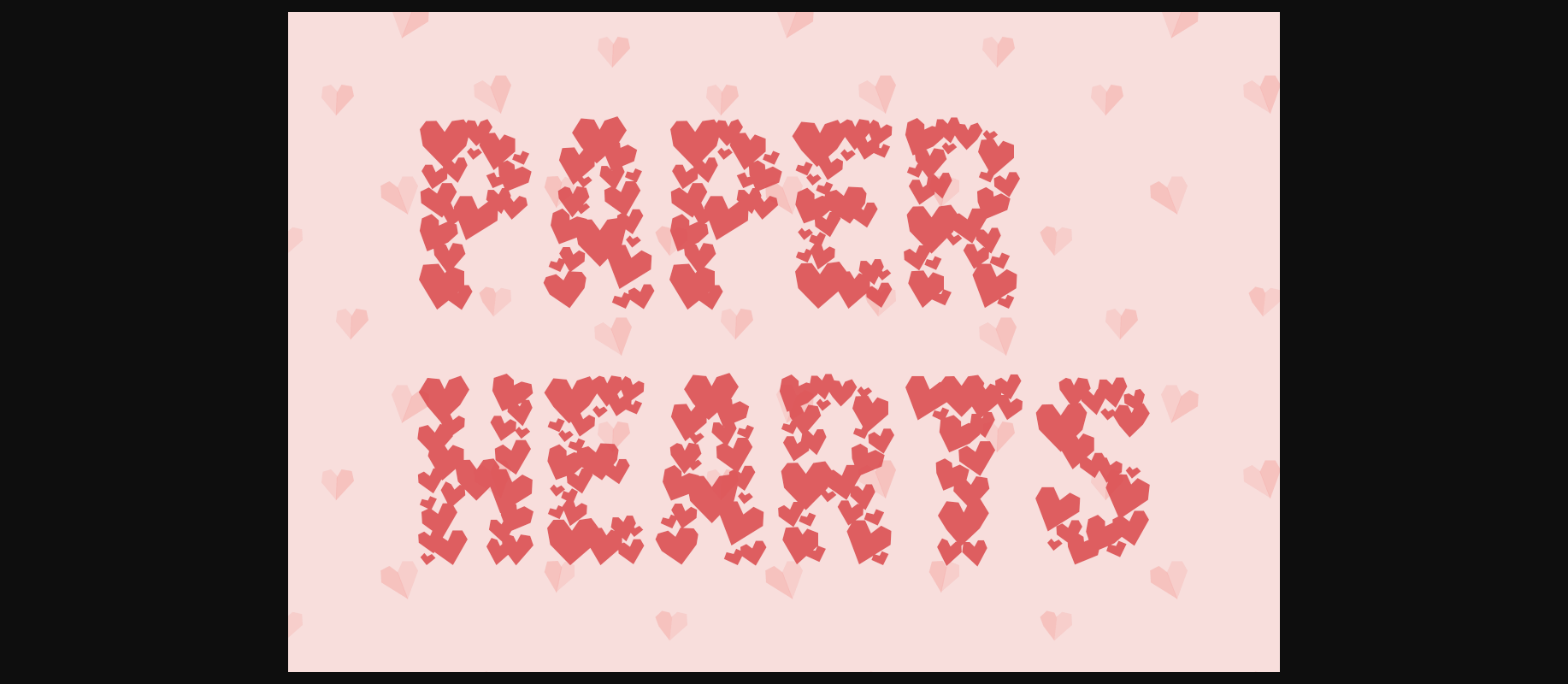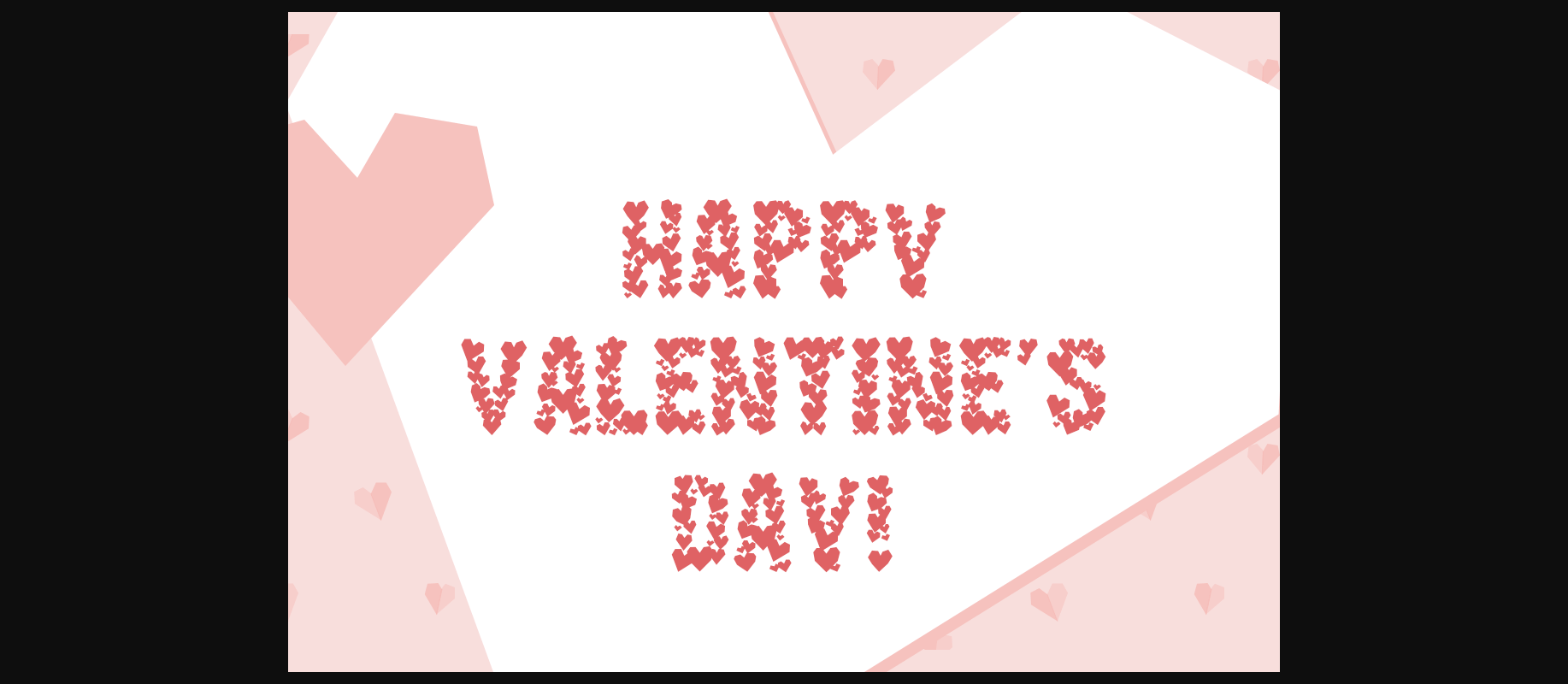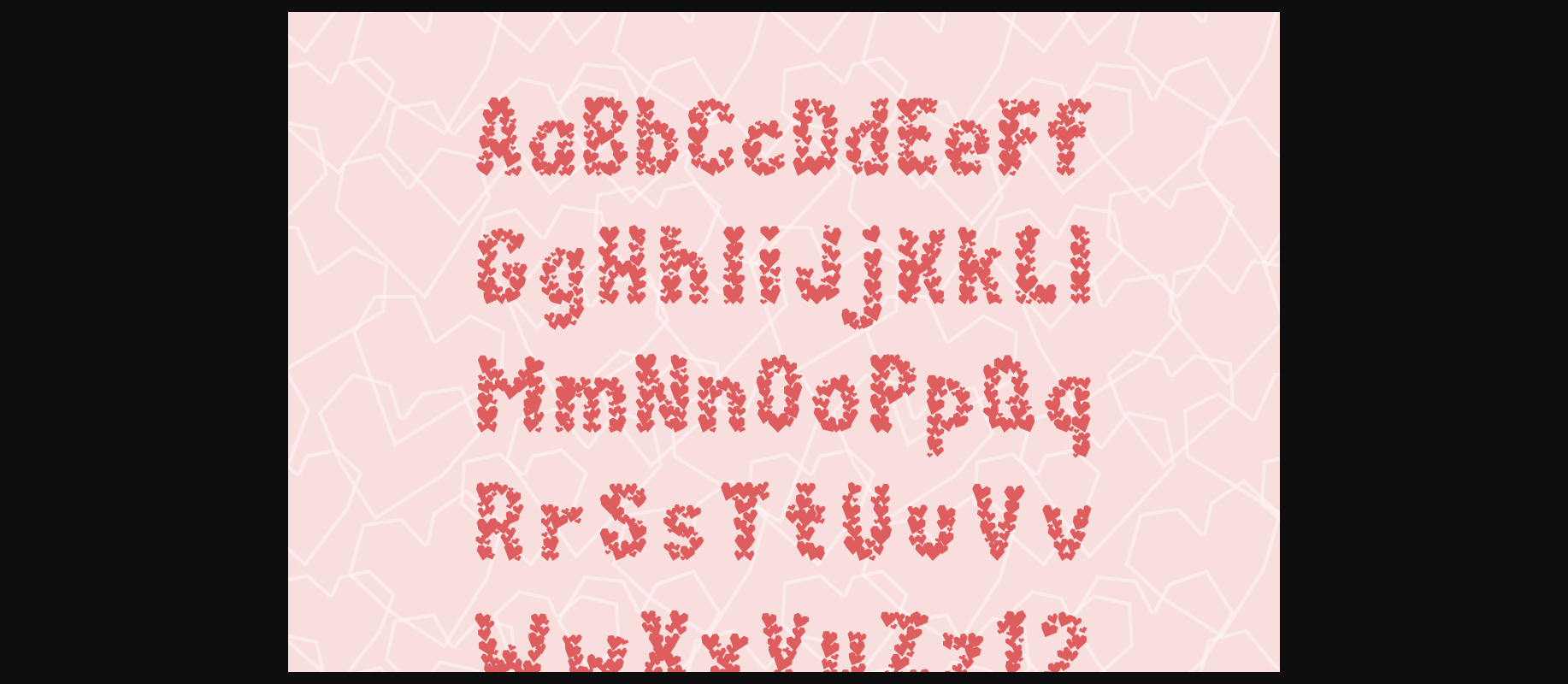
The Paper Hearts mimics childhood construction paper creations. It’s perfect for a homemade Valentine’s Day feel without the safety scissors and glue sticks.